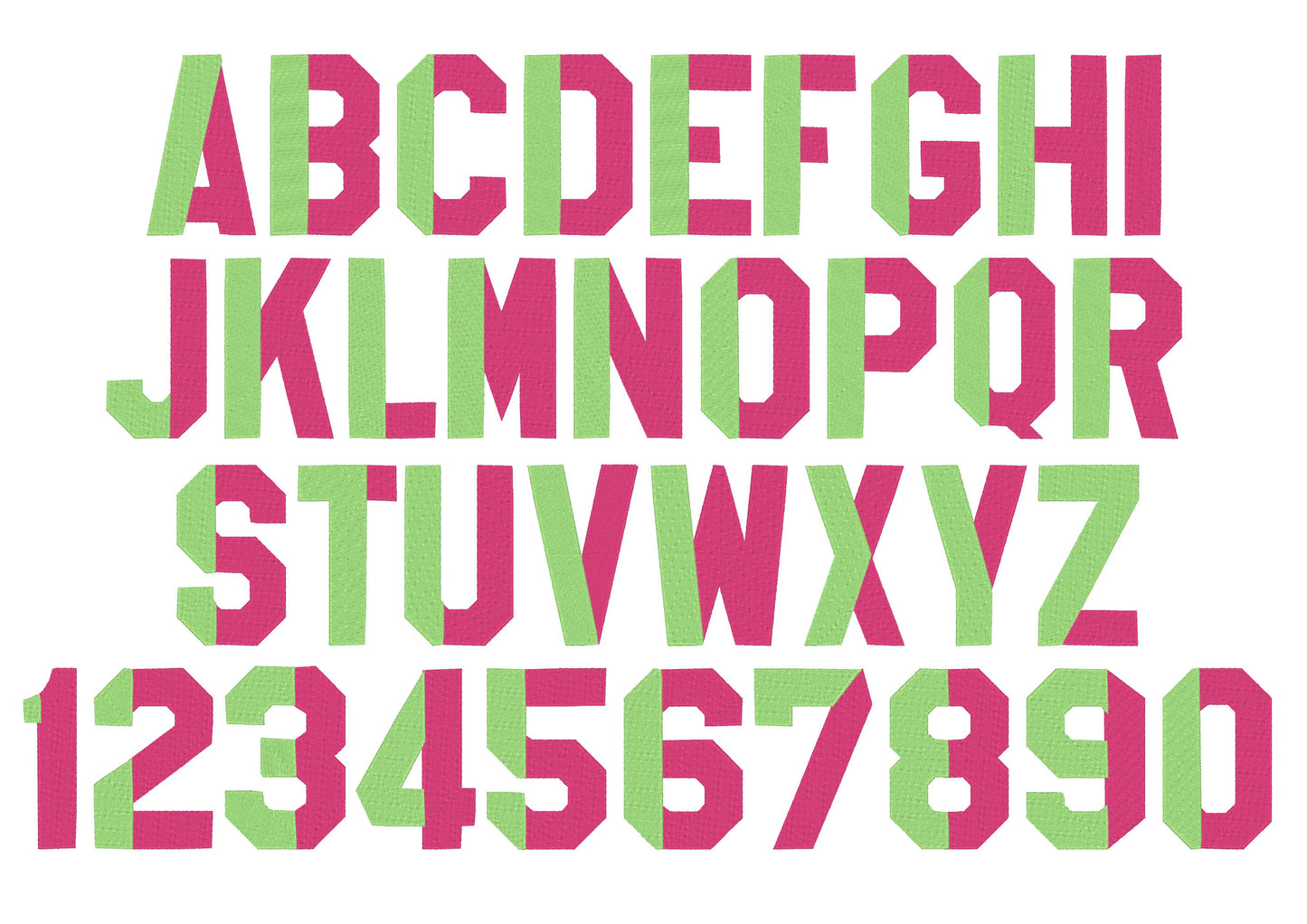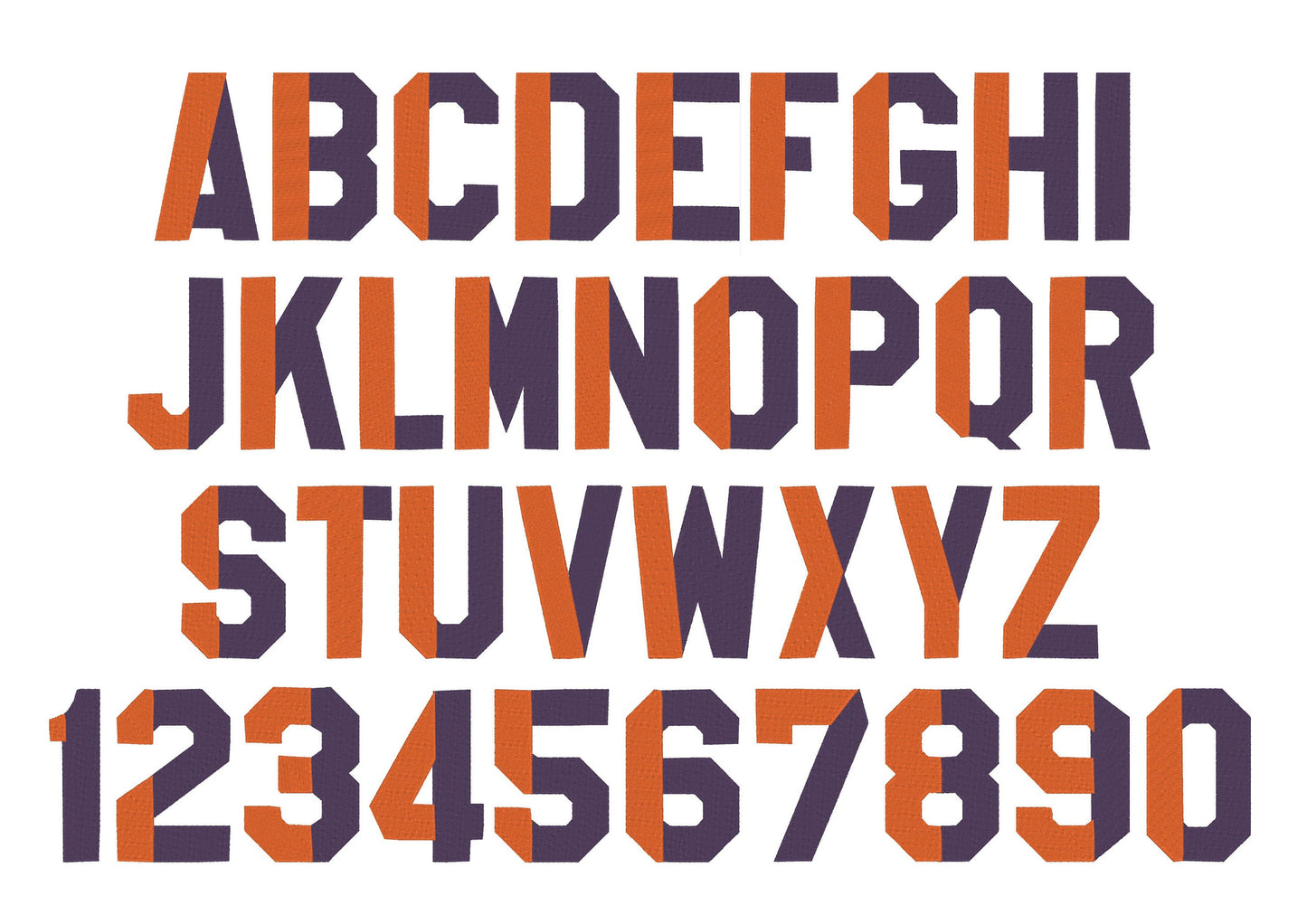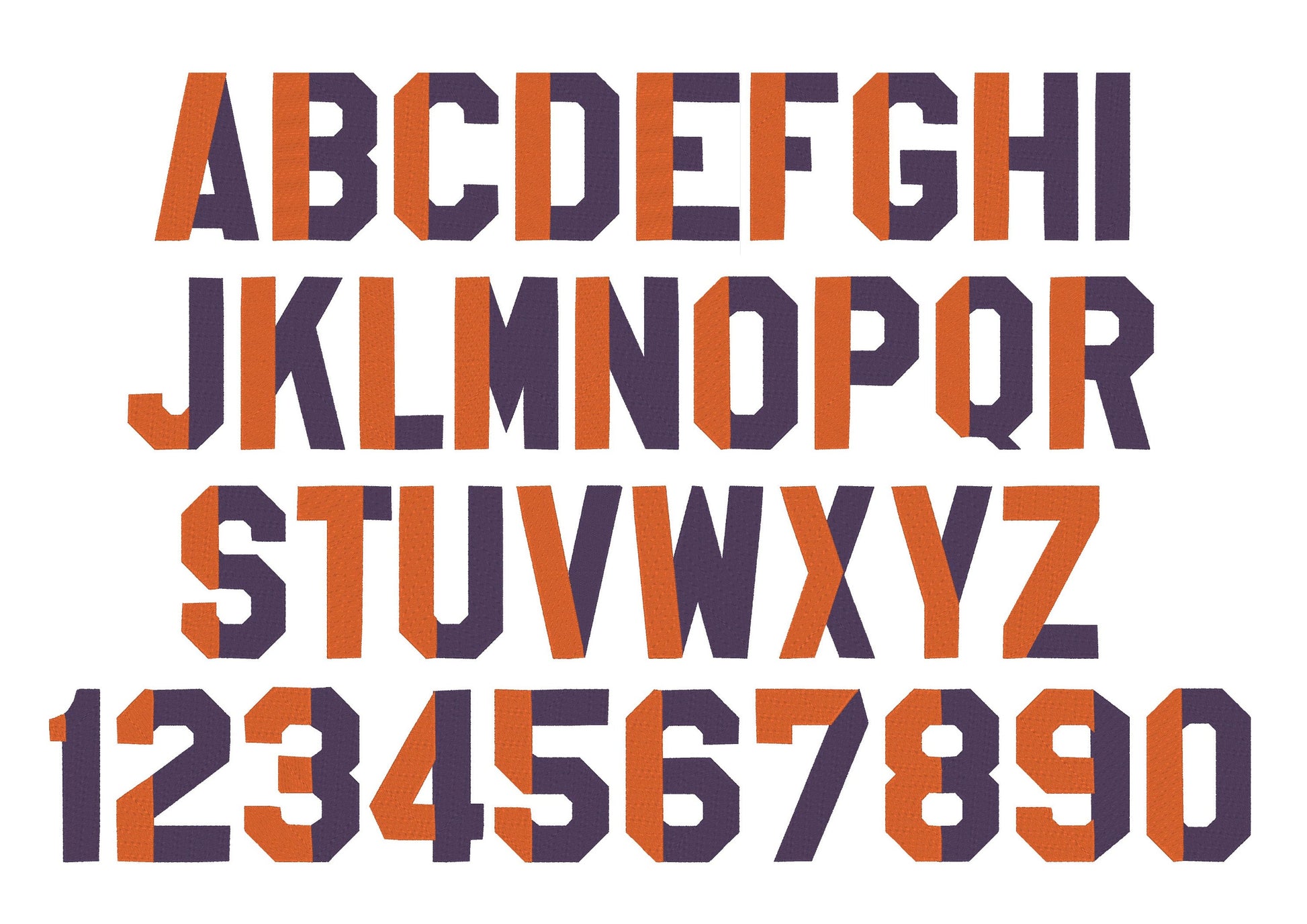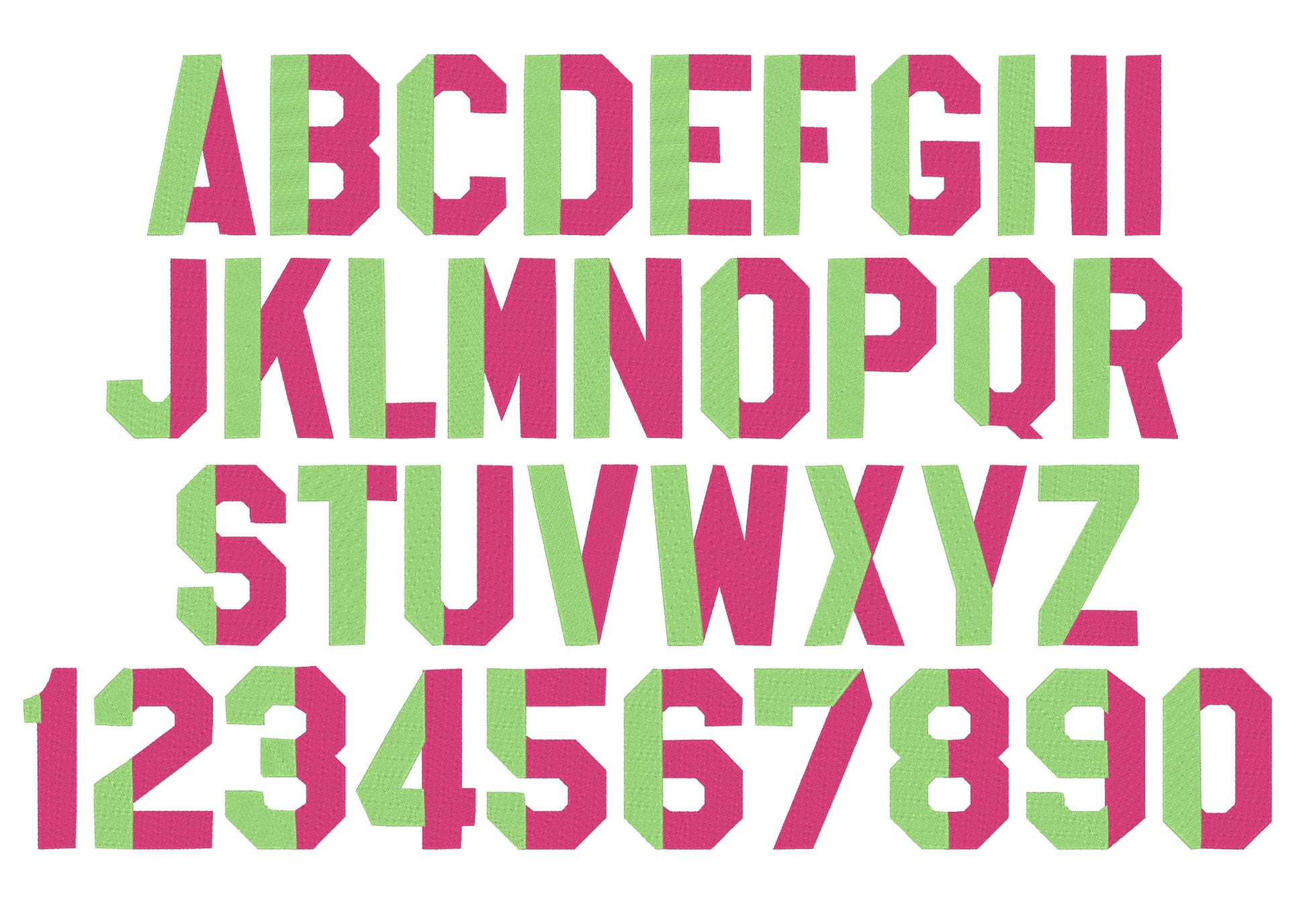
Block Varsity Collegiate Split Font
Block Varsity collegiate split multicolored Font fill stitch 2 color font machine embroidery designs monogram alphabet size 1.6 up to 5 inch
Letters A- Z, and Numebrs 0-9